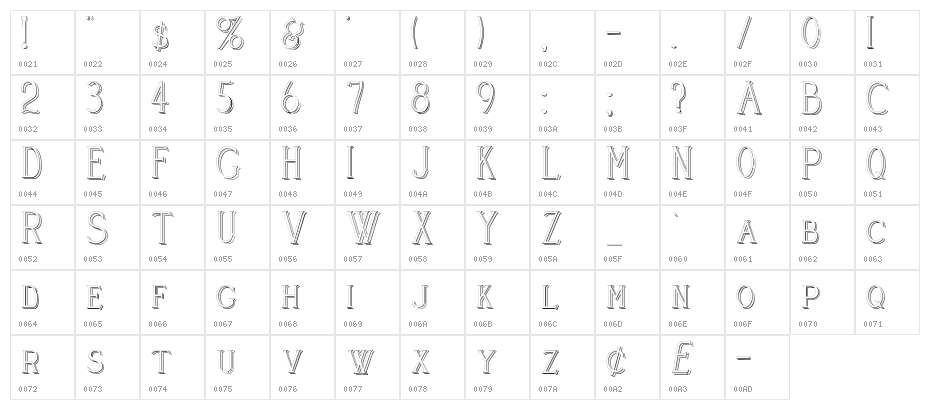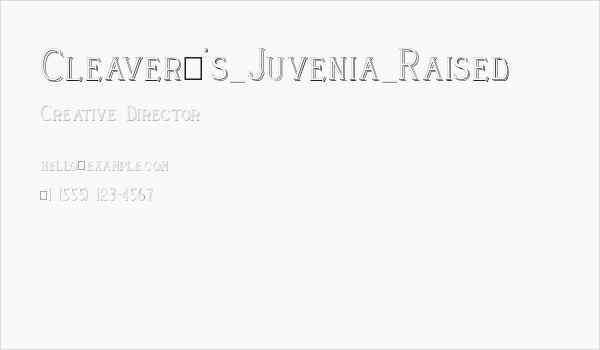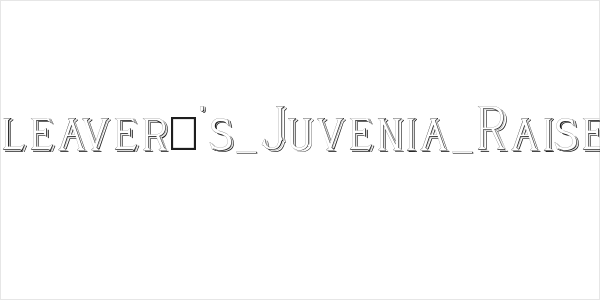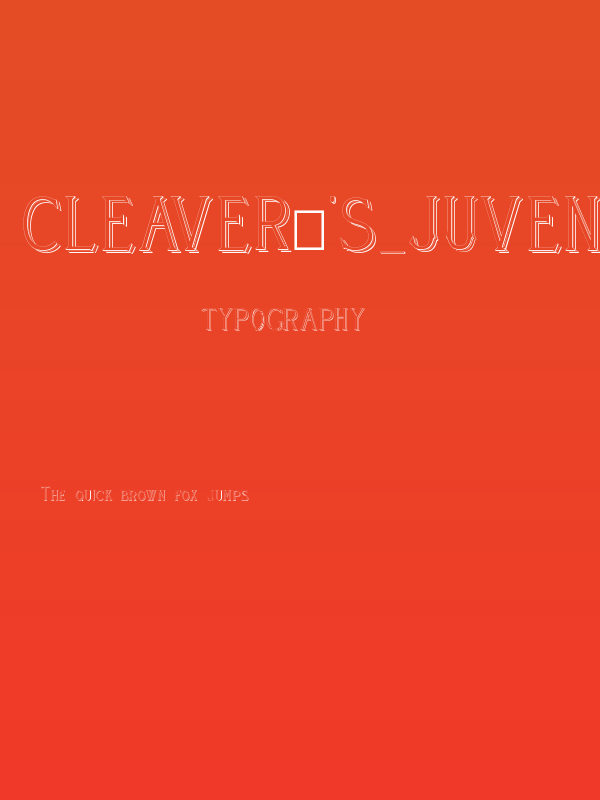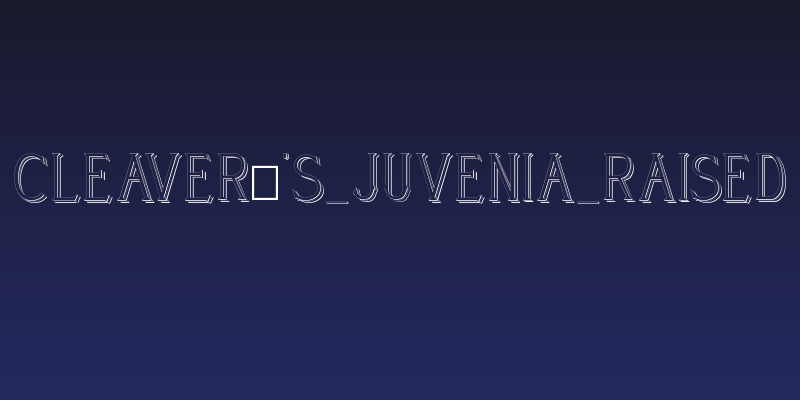
Cleaver's_Juvenia_Raised Font
Cleaver's_Juvenia_Raised Description
This font features a bold, three-dimensional appearance with a raised effect that gives it a distinctive, eye-catching look. The characters are outlined with a shadow-like detail, adding depth and a sense of movement. The uppercase letters are prominent and commanding, while the lowercase letters maintain a consistent style, ensuring readability. The numerals are equally bold, matching the overall aesthetic of the font. Special characters are designed with the same attention to detail, making them stand out. This font is ideal for projects that require a strong visual impact.
| Proposed Projects | Ideal for posters, headlines, logos, and any design needing a strong visual impact. |